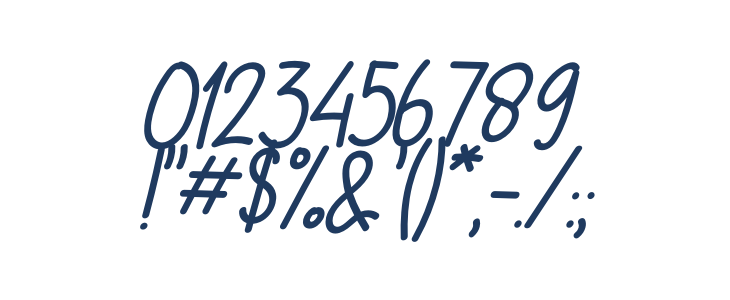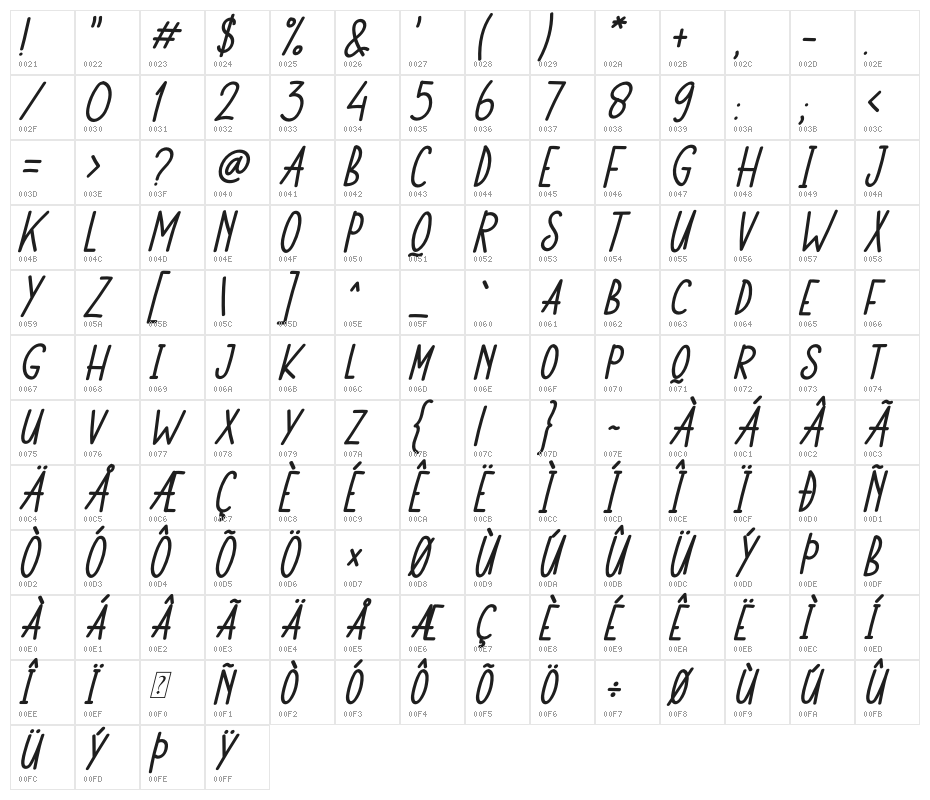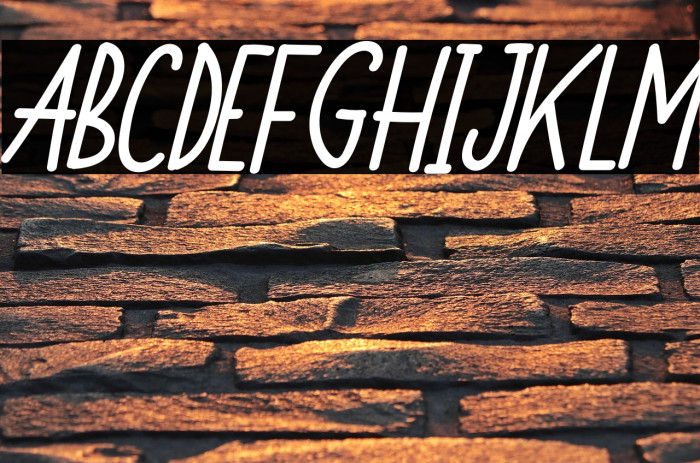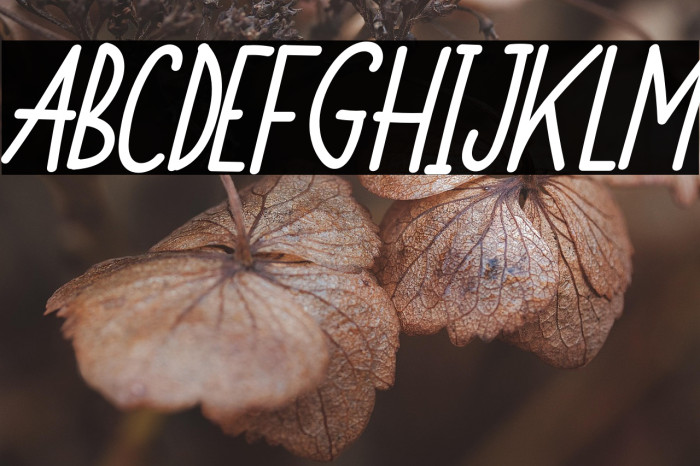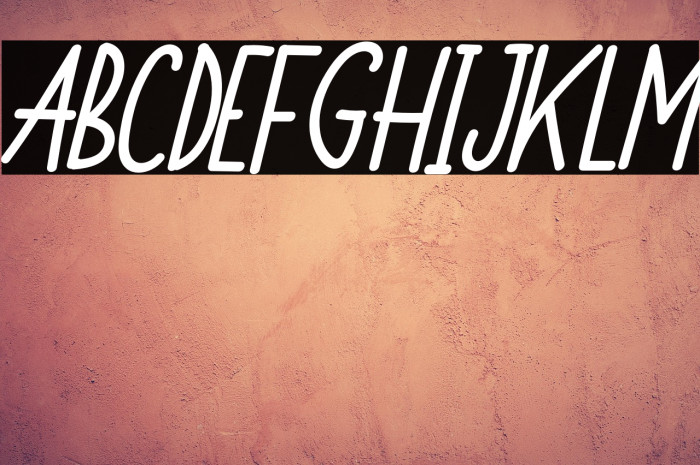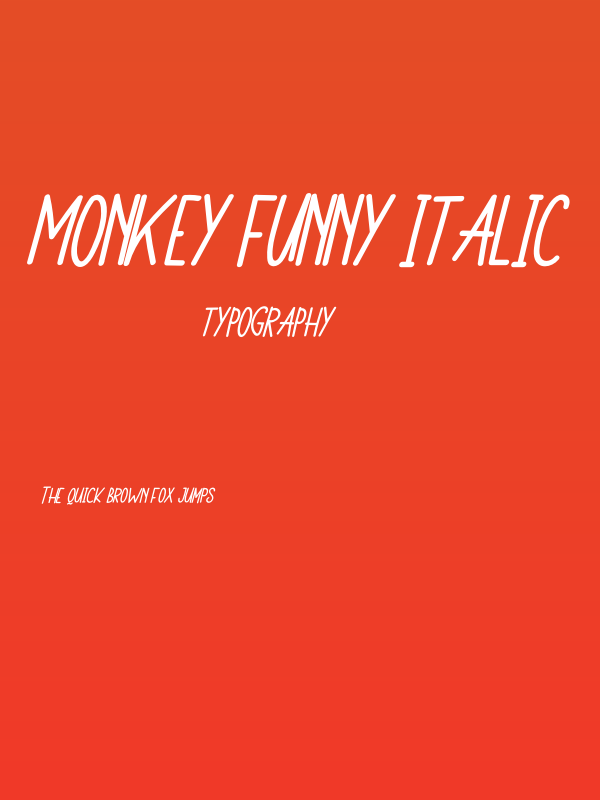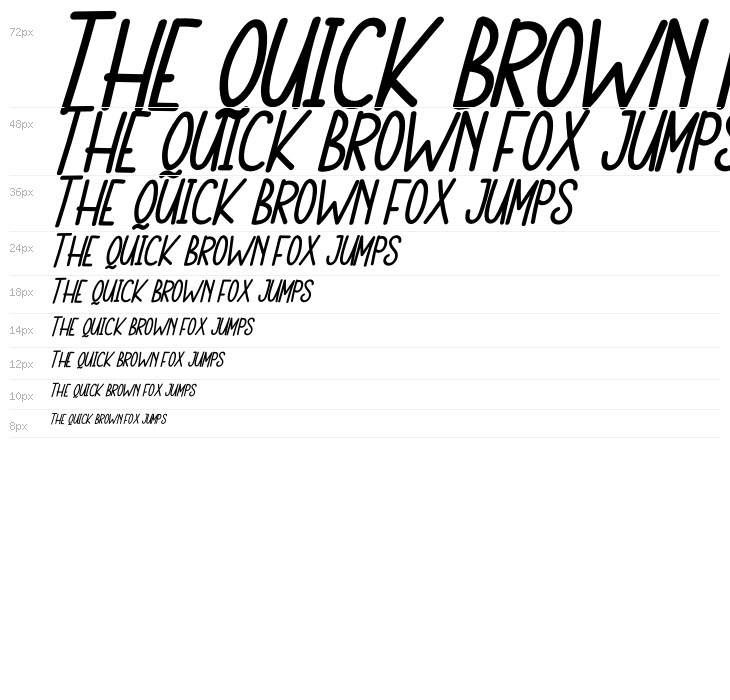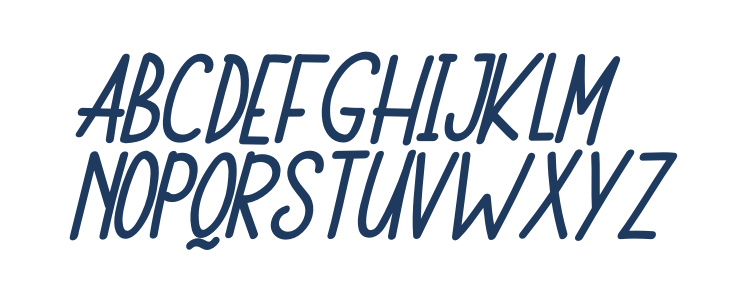
Monkey Funny Italic Font
Monkey Funny Italic Description
This playful and energetic font features a handwritten style with a distinct italic slant, giving it a lively and dynamic appearance. The characters are bold and slightly condensed, with a smooth flow that mimics natural handwriting. The uppercase and lowercase letters maintain a consistent style, with rounded edges and a slight tilt to the right, enhancing the casual and informal feel. The numerals and special characters are crafted to match the overall aesthetic, ensuring a cohesive look across all elements. This font's unique personality makes it ideal for projects that require a touch of fun and creativity.
| Overall Style | Playful, Casual |
| Proposed Projects | Great for greeting cards, playful branding, children's books, and creative social media graphics. |